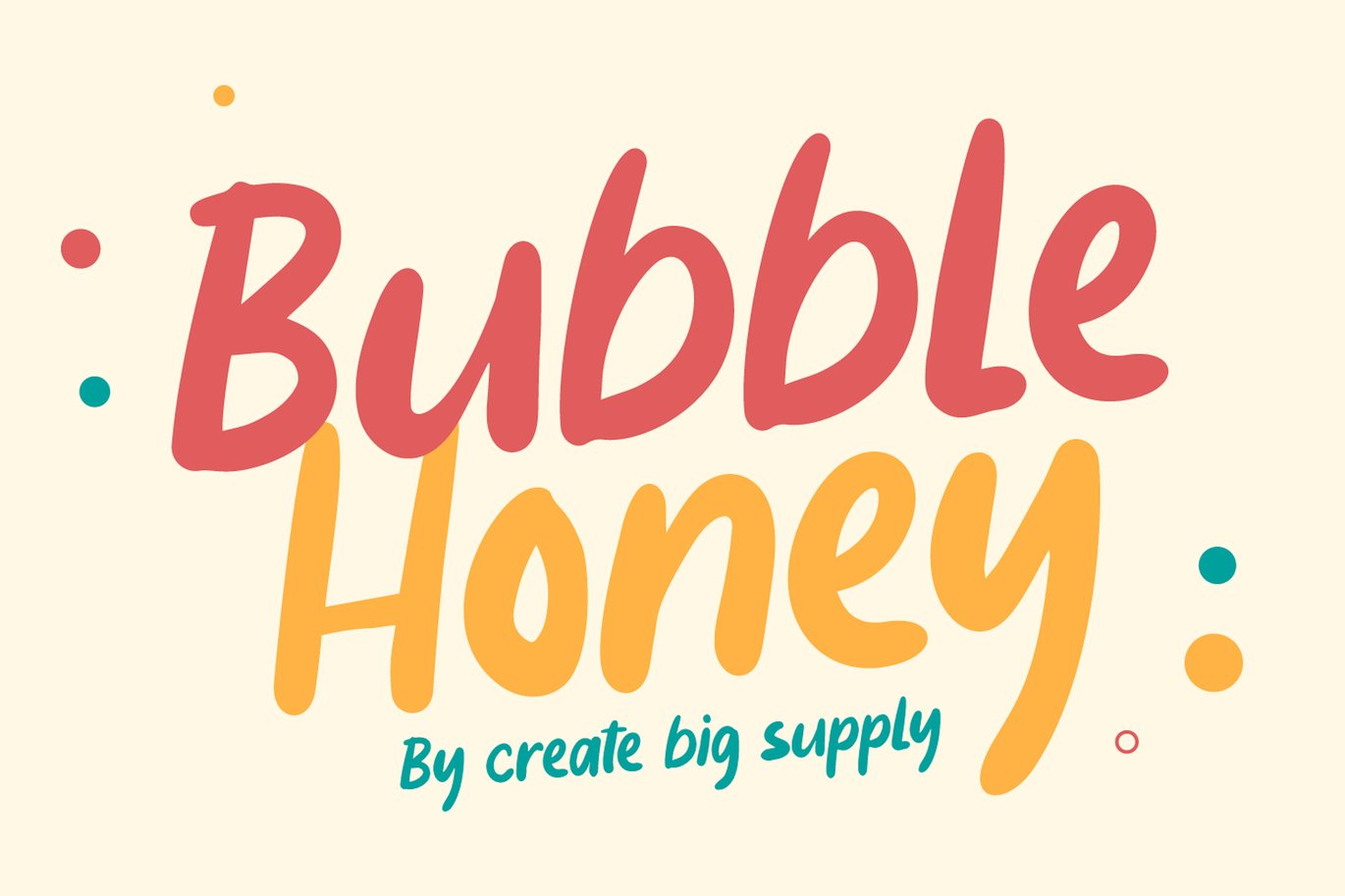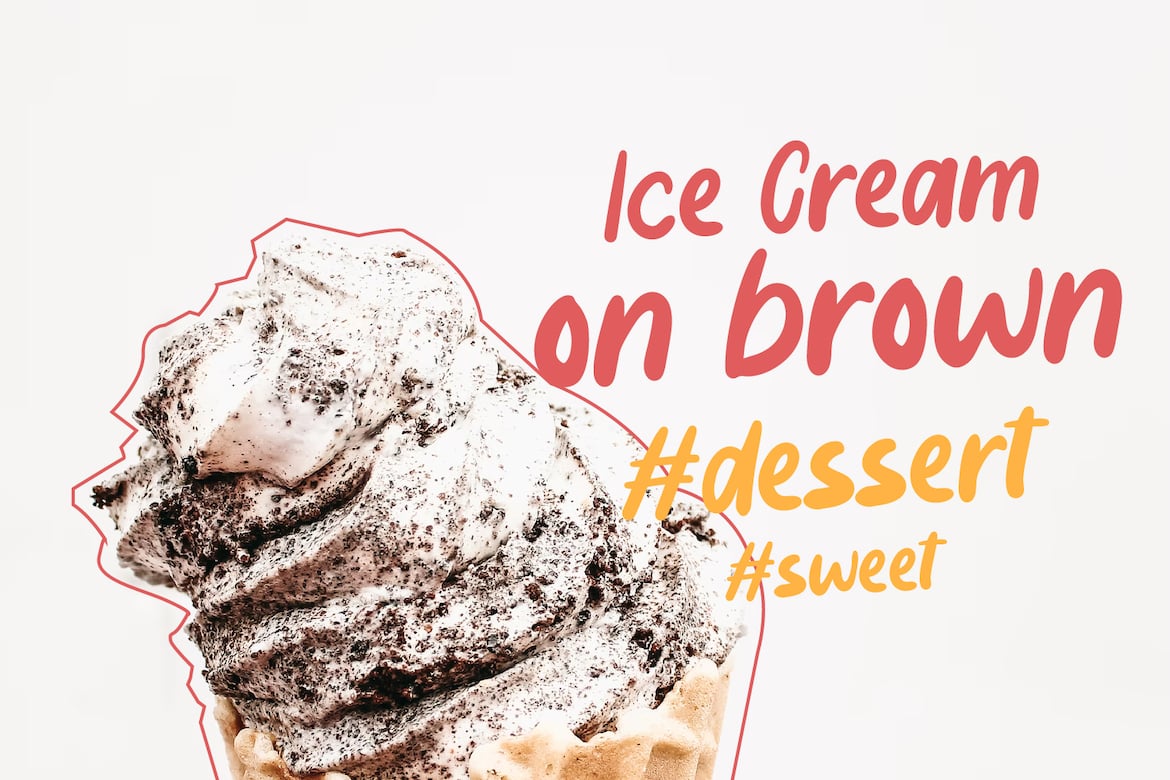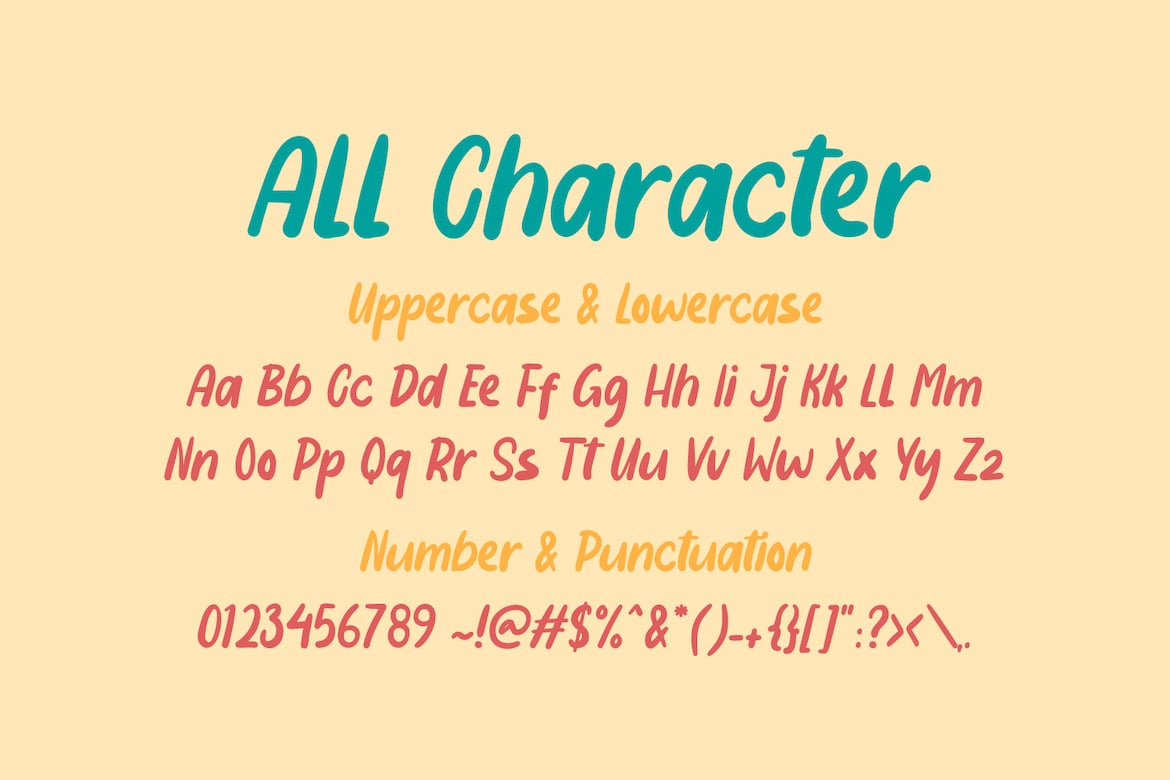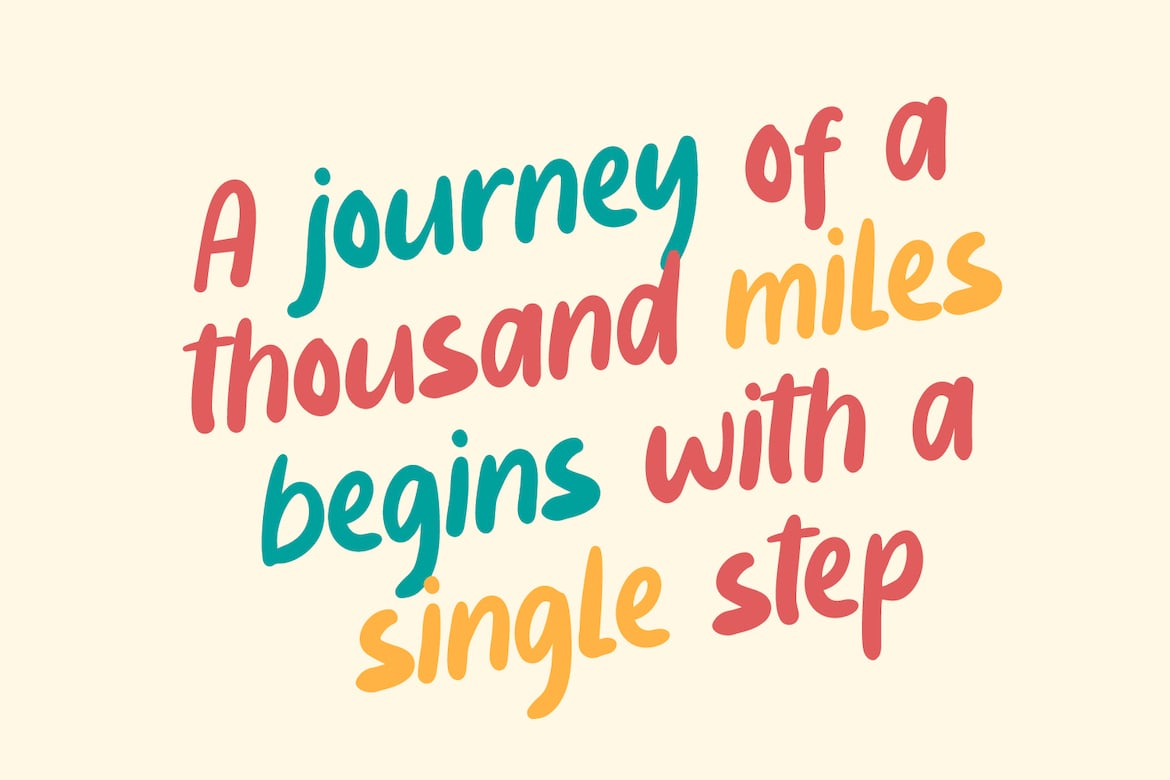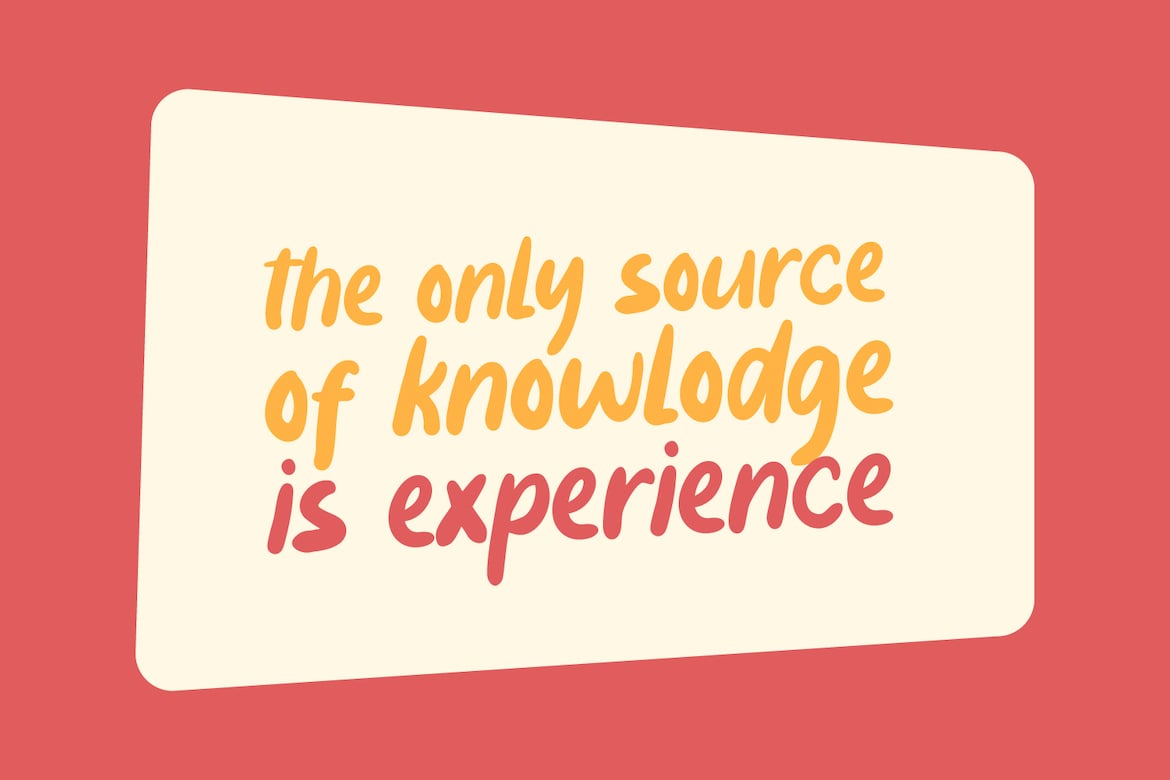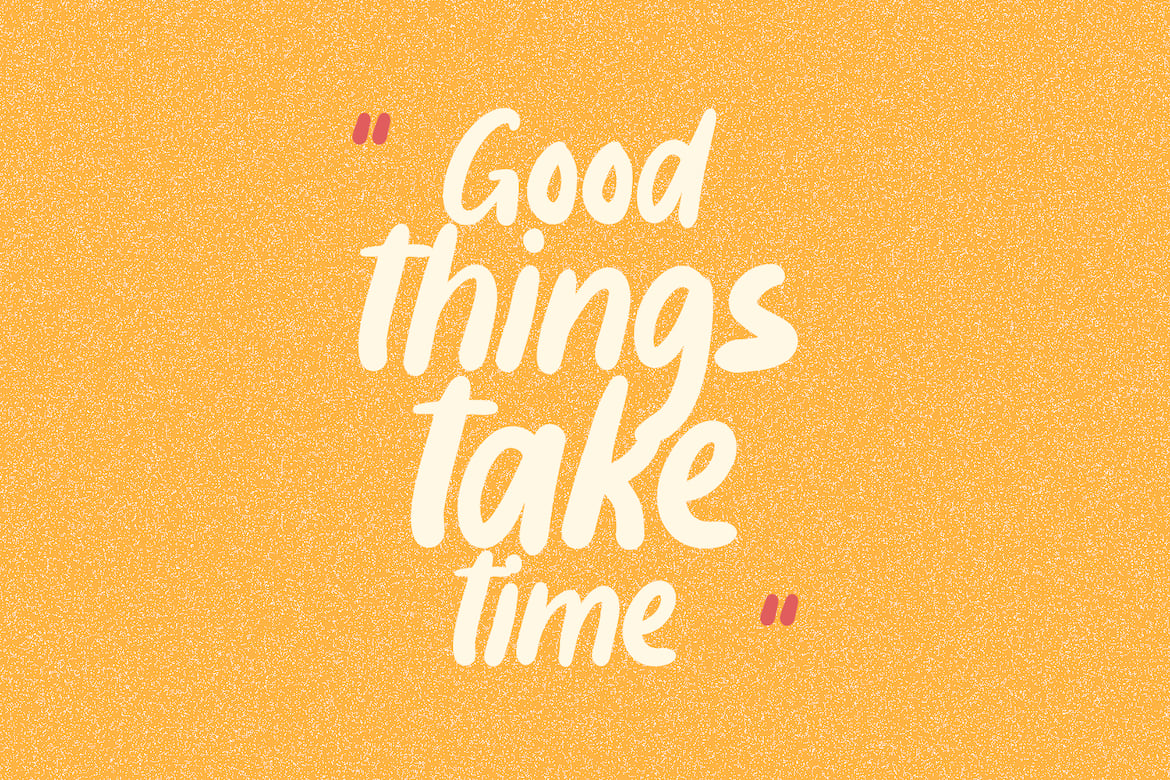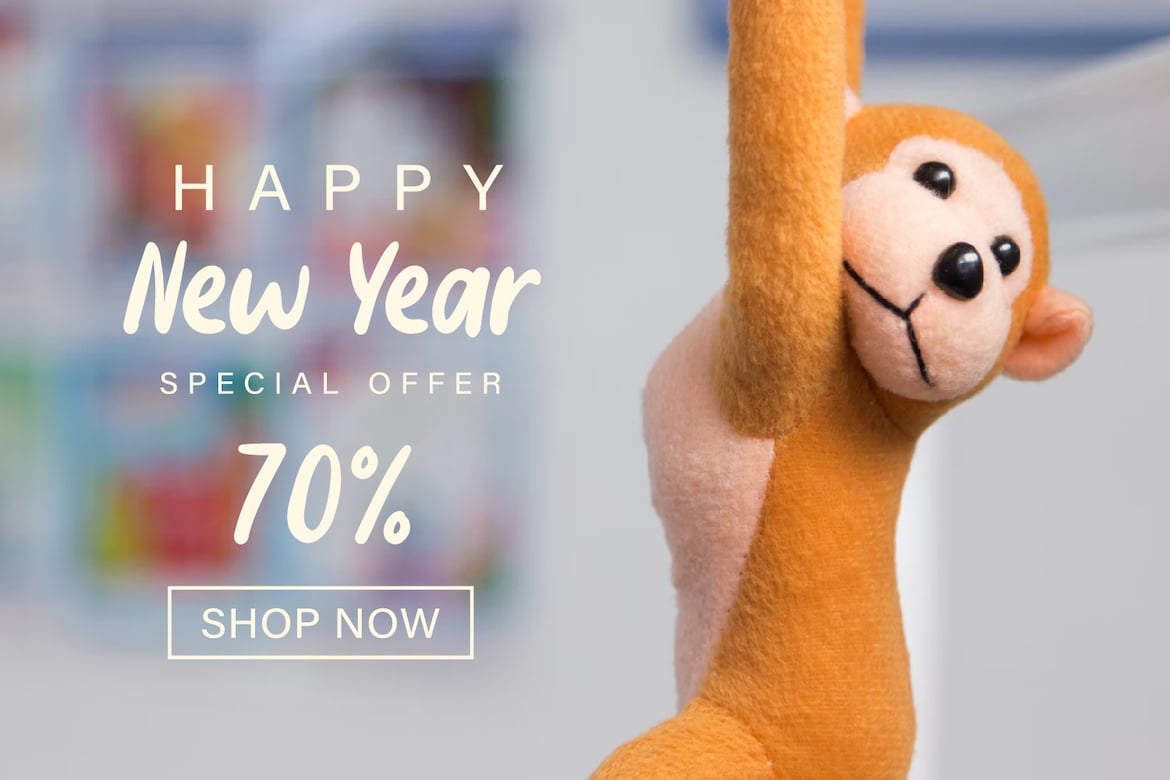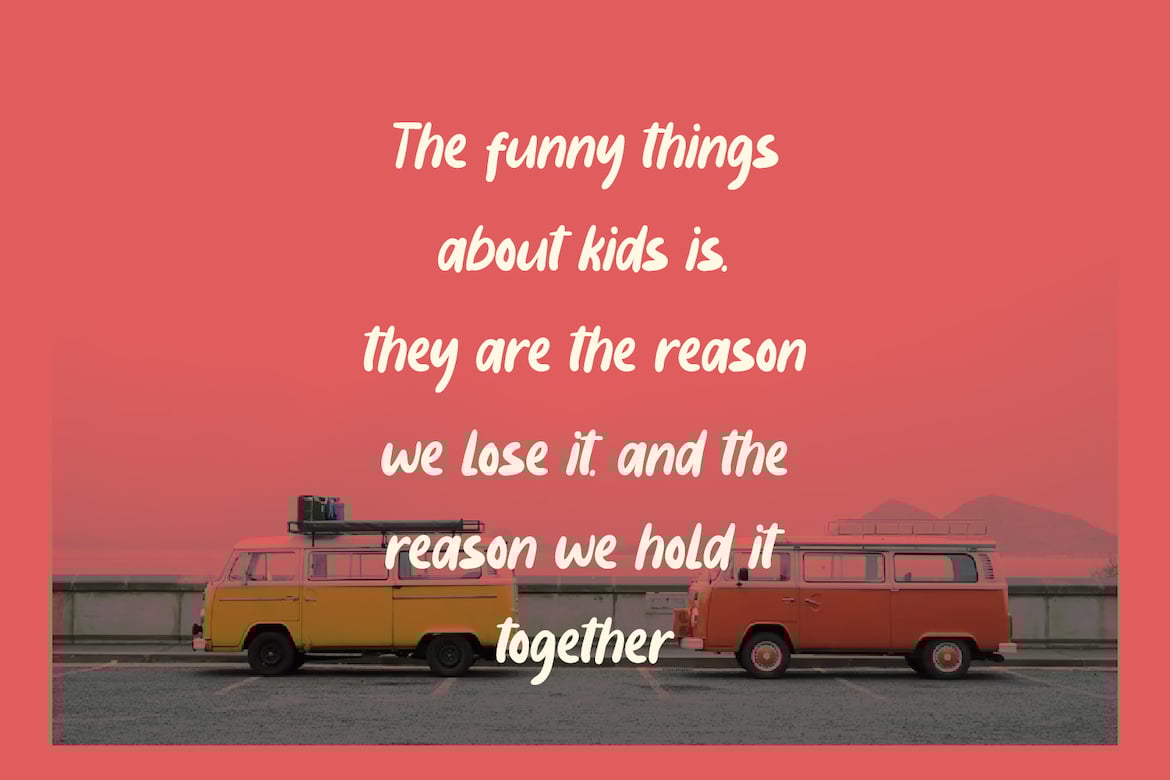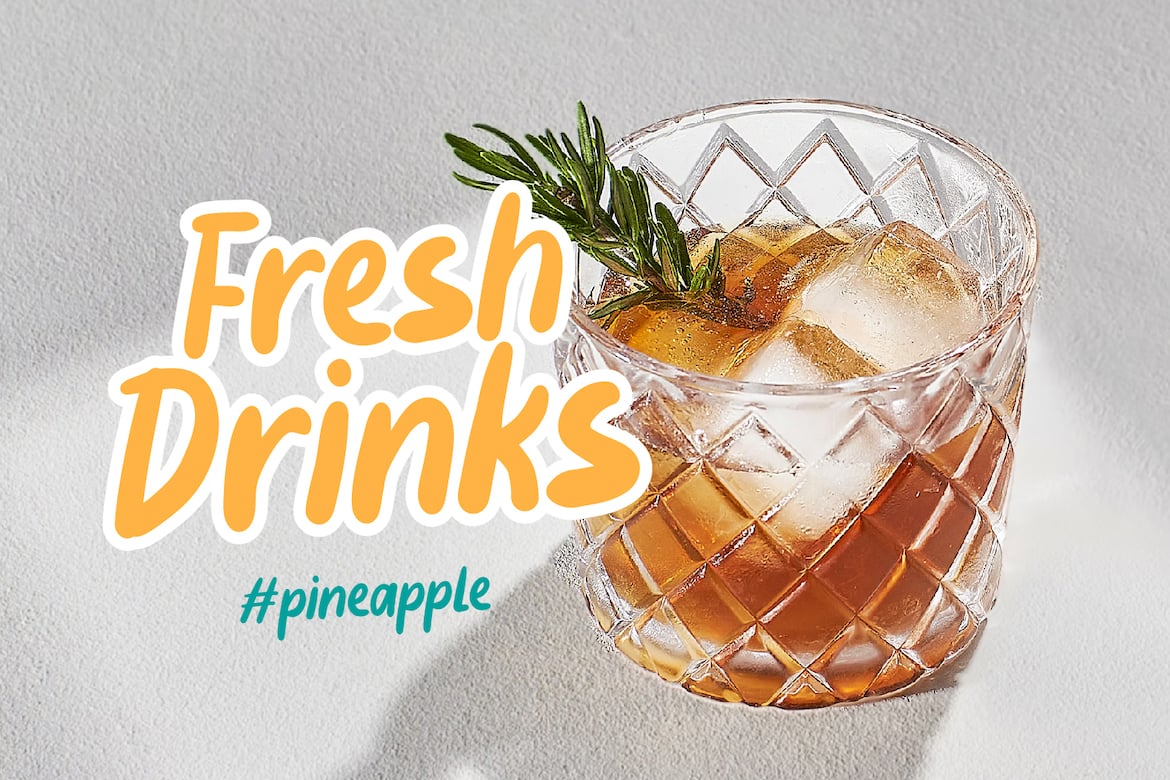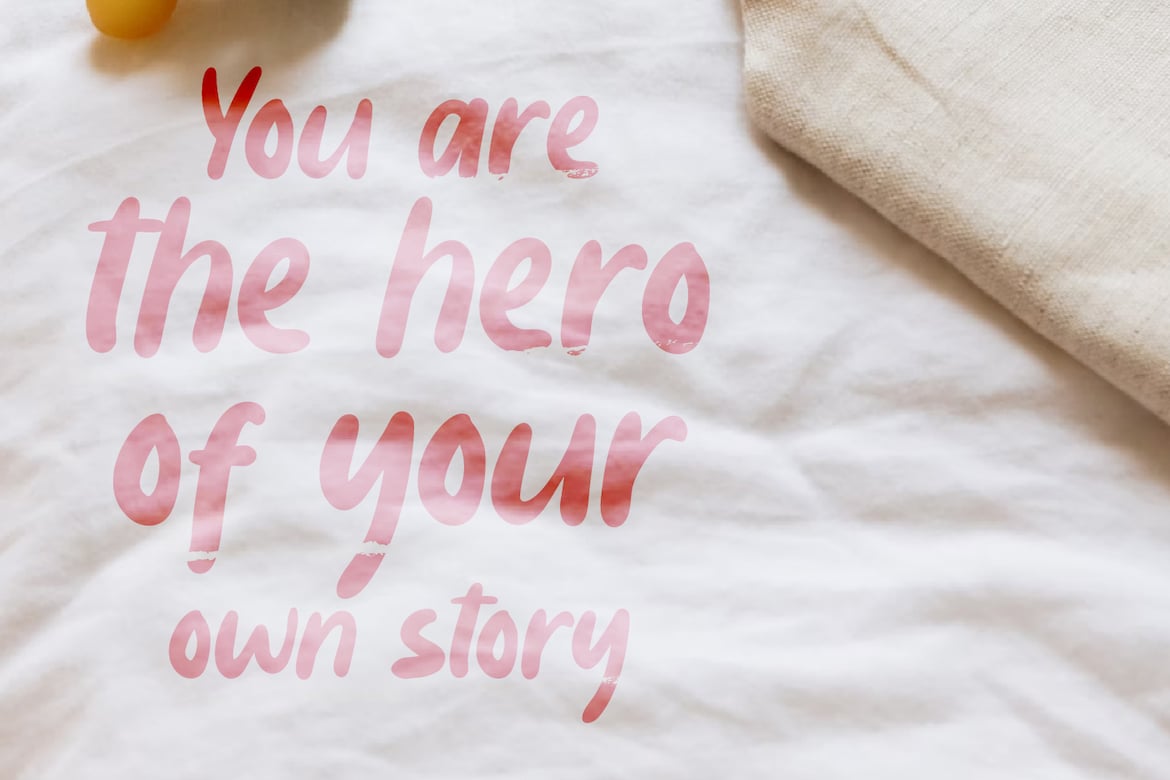
Bubble Honey – Playful Fonts
Bubble Honey Font is a cute and fun display font. This will add a cheerful, happy touch to your design.\
Features:\
- Uppercase & lowercase
- Numbers and punctuation
Full Character Set